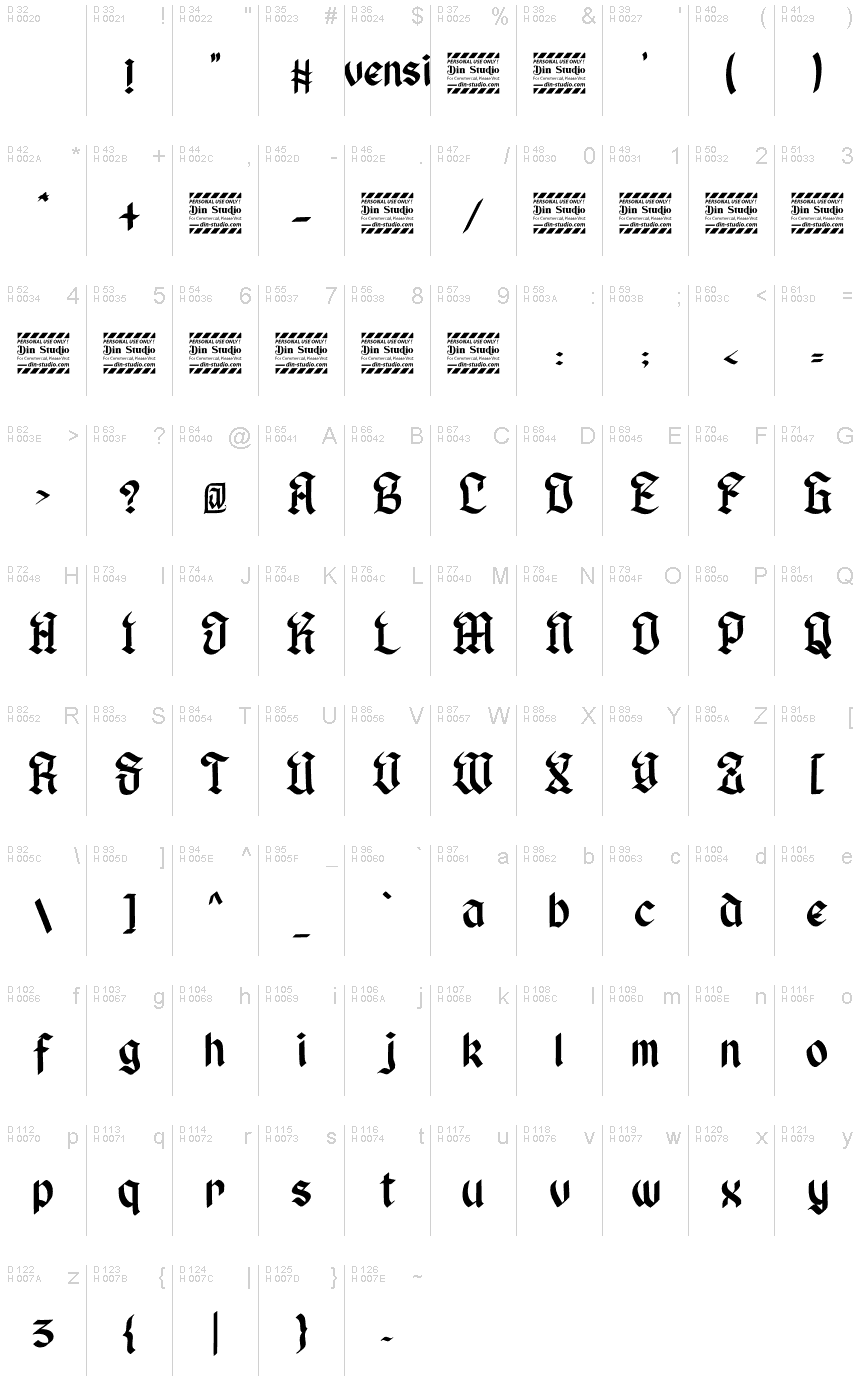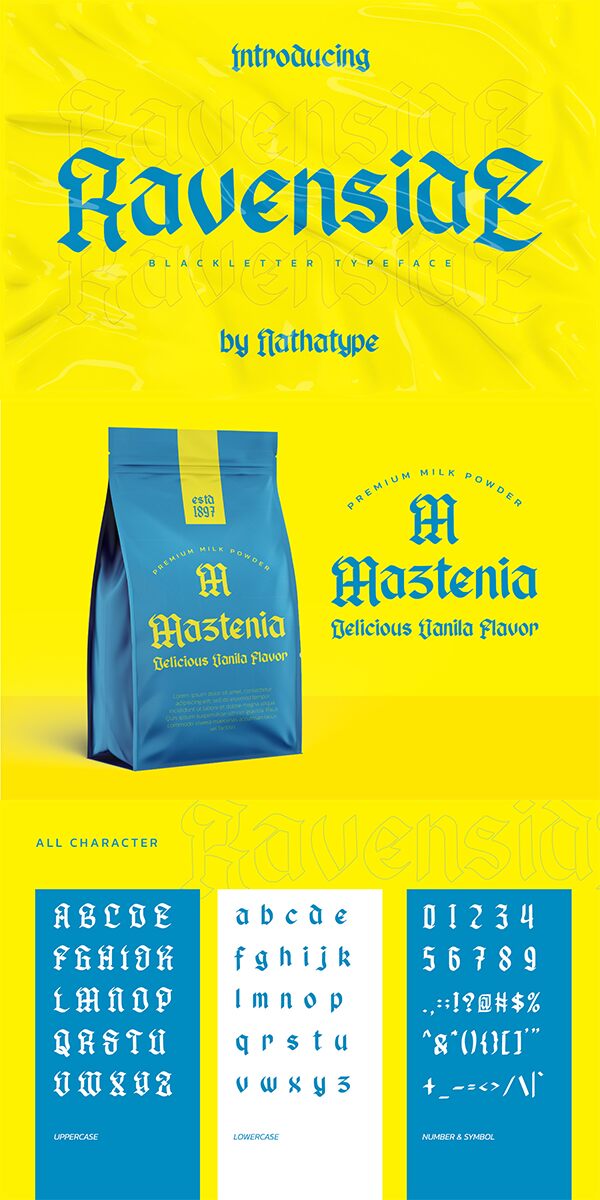
Ravenside, designed by Din Studio, is a gothic font with a modern twist. Its artistic style makes it perfect for a wide range of projects and promotions.
Whether you need a captivating logo, an eye-catching book cover, a striking poster, a trendy t-shirt design, or impactful branding and advertisements, Ravenside is the all-in-one solution you've been searching for. With its unique and stylish appearance, this font will bring out the contemporary and sophisticated essence of your work.
Embrace Ravenside to add that extra edge to your creative endeavors and captivate your audience with its intriguing charm.